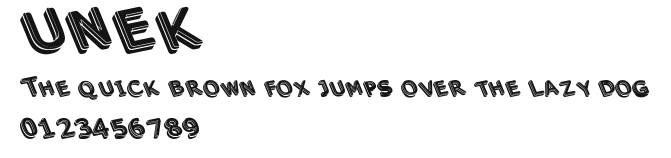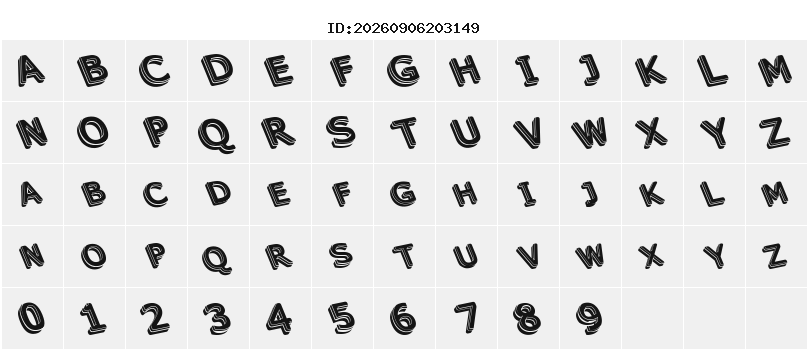
unek Preview
• Font Name: unek
• Font ID: hertoy: unison: 2014
• Full Font Name: unek
• Version: Version 1.000 2014 initial release
• PostScript Name: unek
• Character Count: 69
• Designer: hertoy
• Manufacturer: hertoy
About unek.ttf
unek.ttf is a modern, elegant sans-serif font designed for ultimate readability and visual harmony. Perfect for branding, headlines, web design, and print materials.